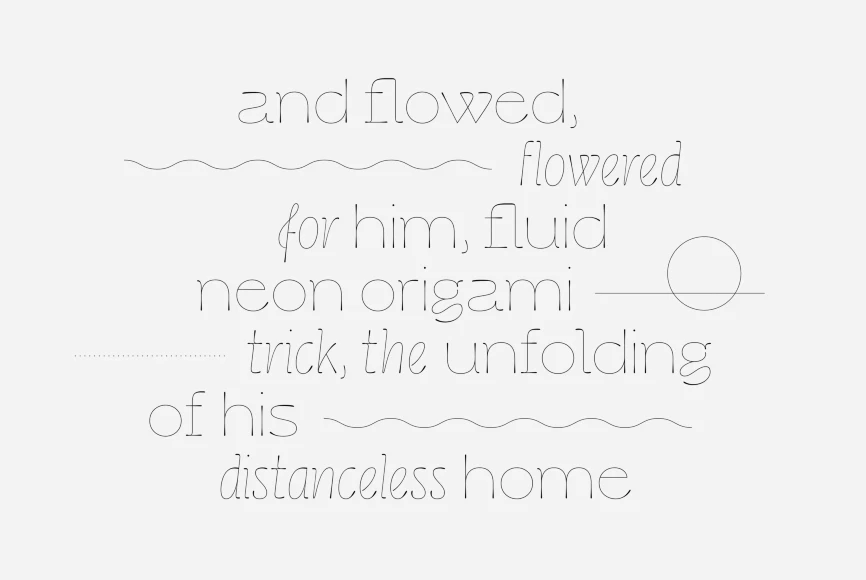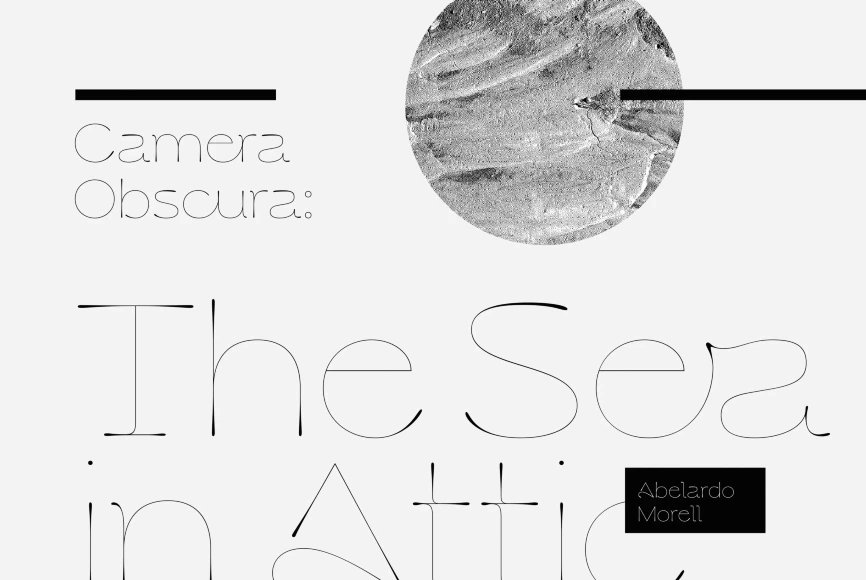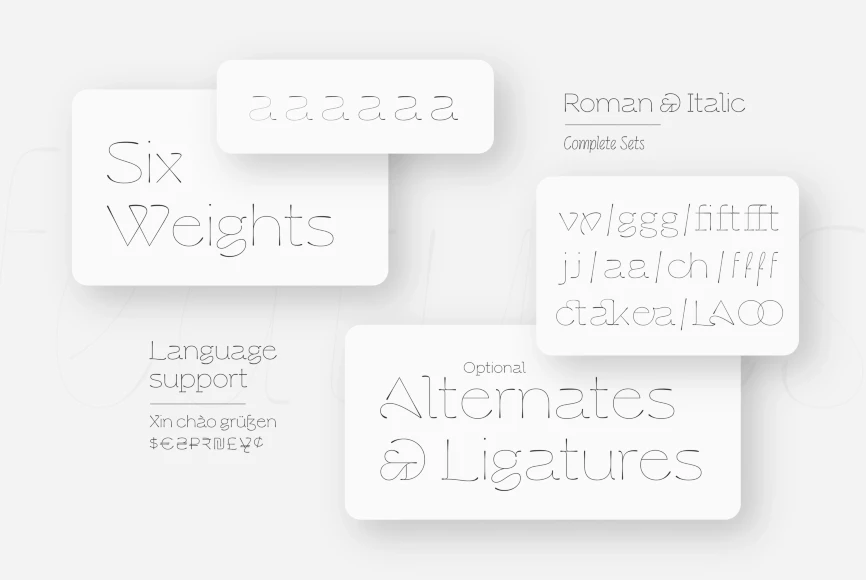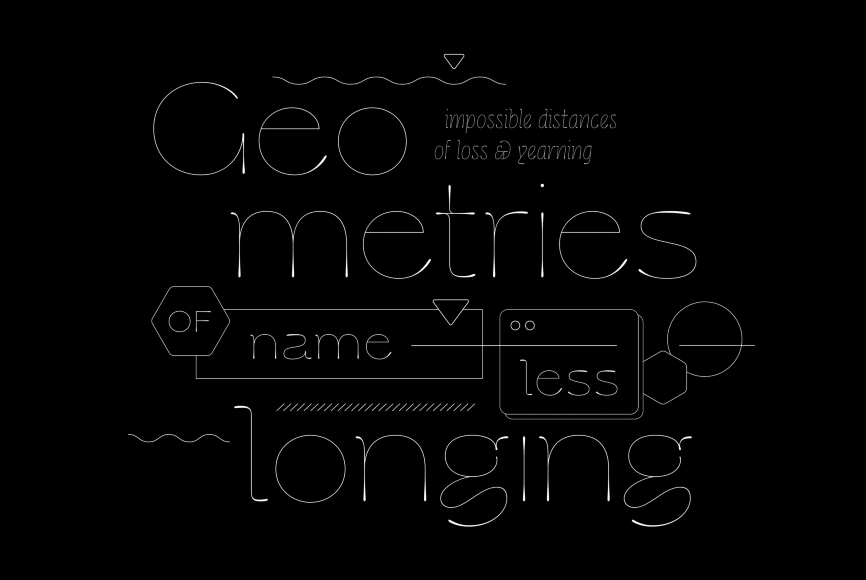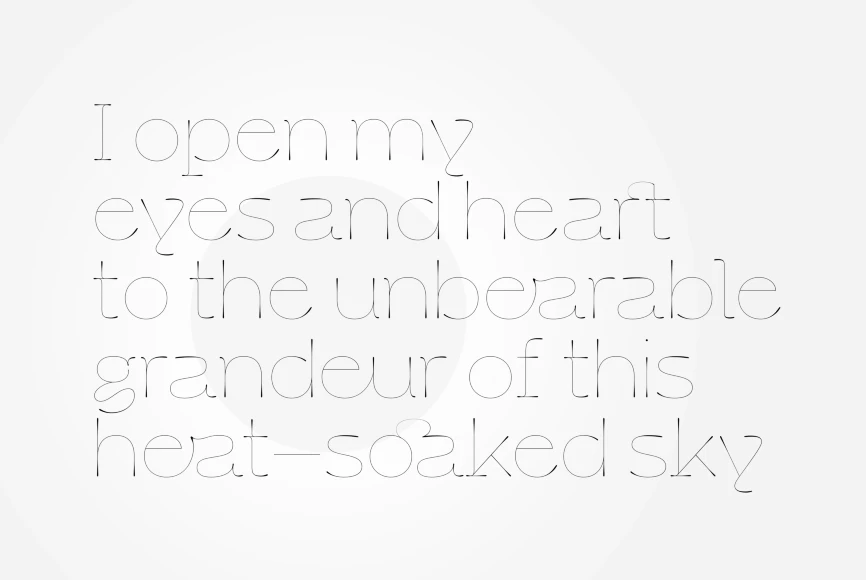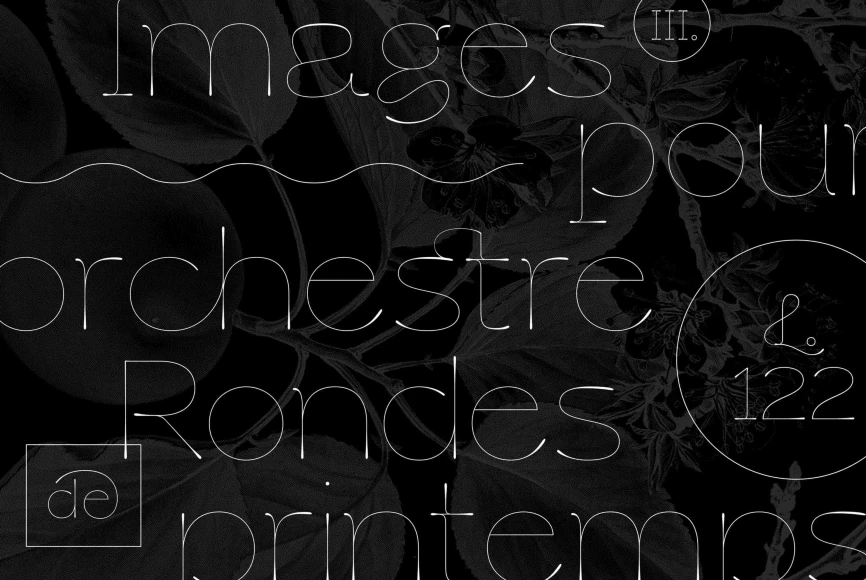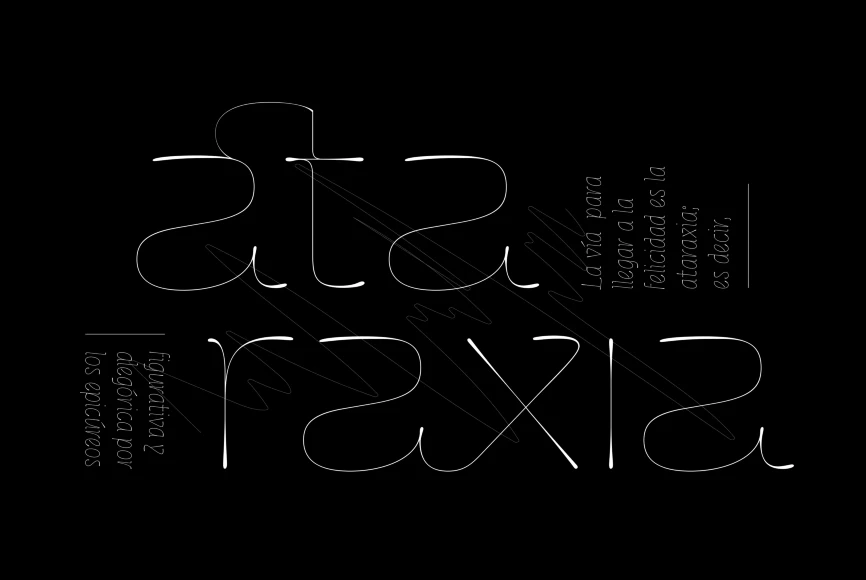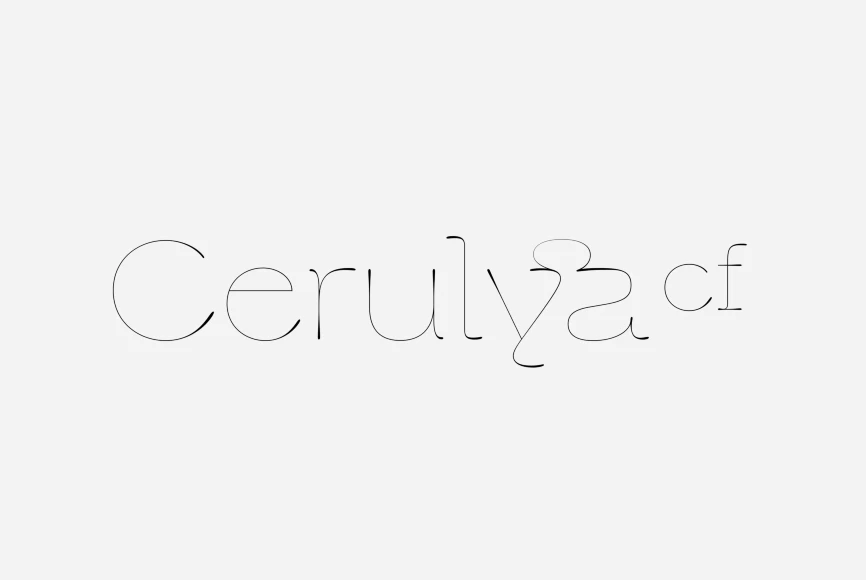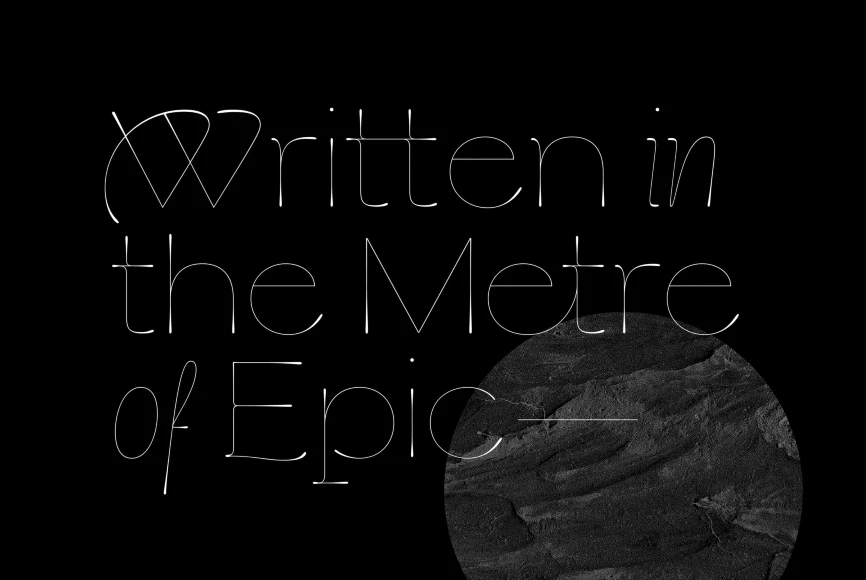
Cerulya
By Connary Fagen
Airy and delicate, Cerulya CF is a striking display typeface brimming with movement and grace. It was created to shine brightest at large sizes — perfect for logos, posters, and other headlines. Its unique semi-serif design has rounded teardrop terminals and includes ligatures, swashes, and alternates galore. Cerulya pairs well with a contrasting, simple geometric sans like Greycliff CF. Try dramatically different point sizes between the two for maximum effect.